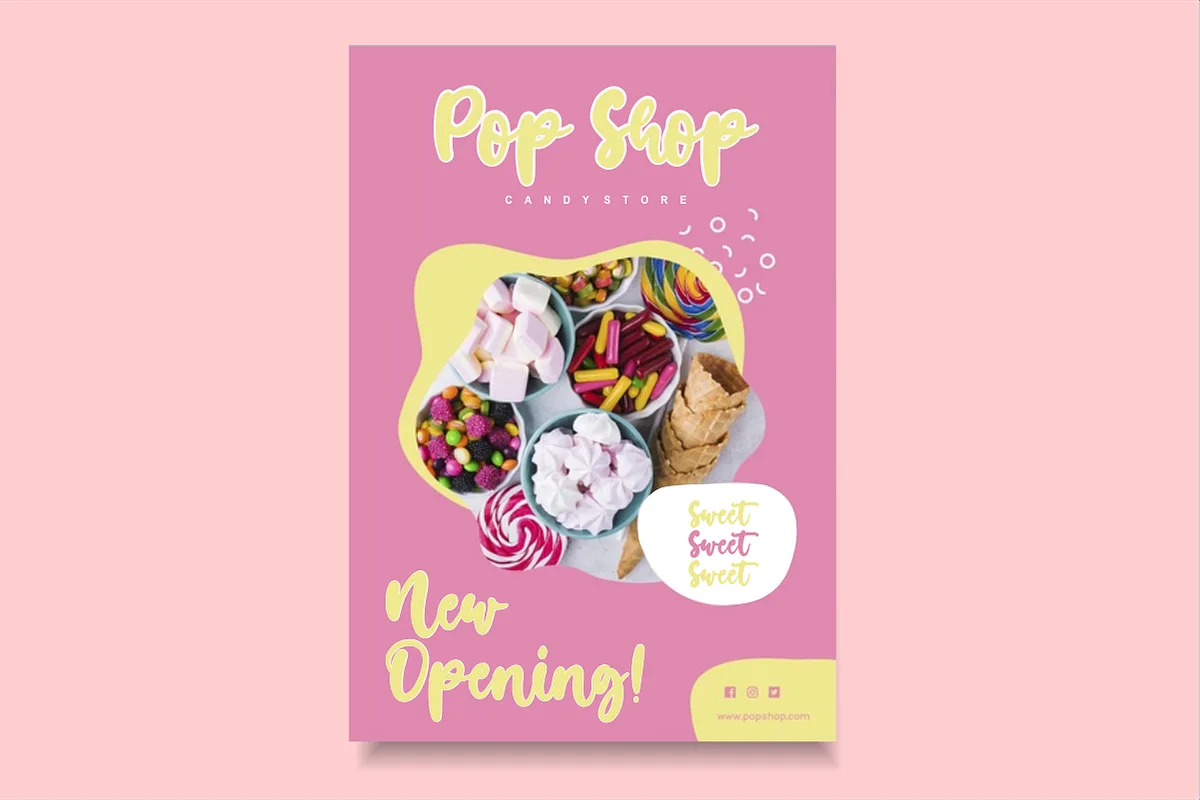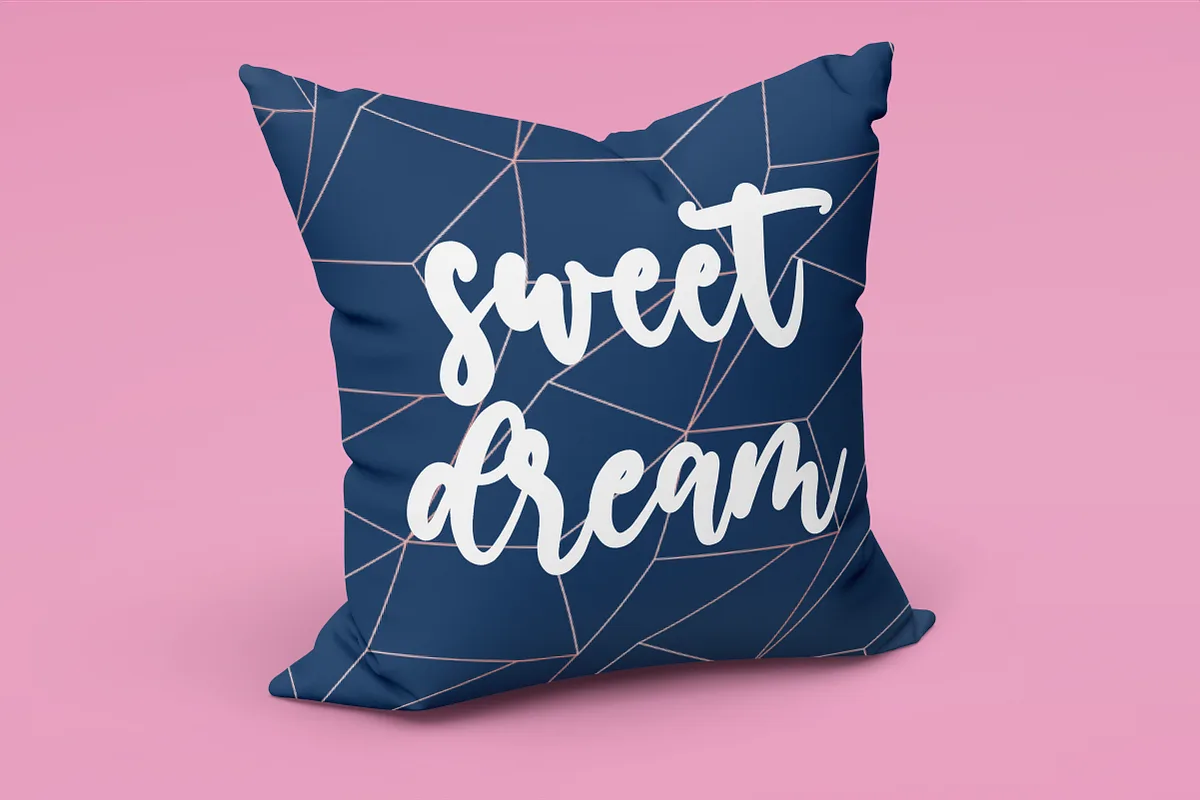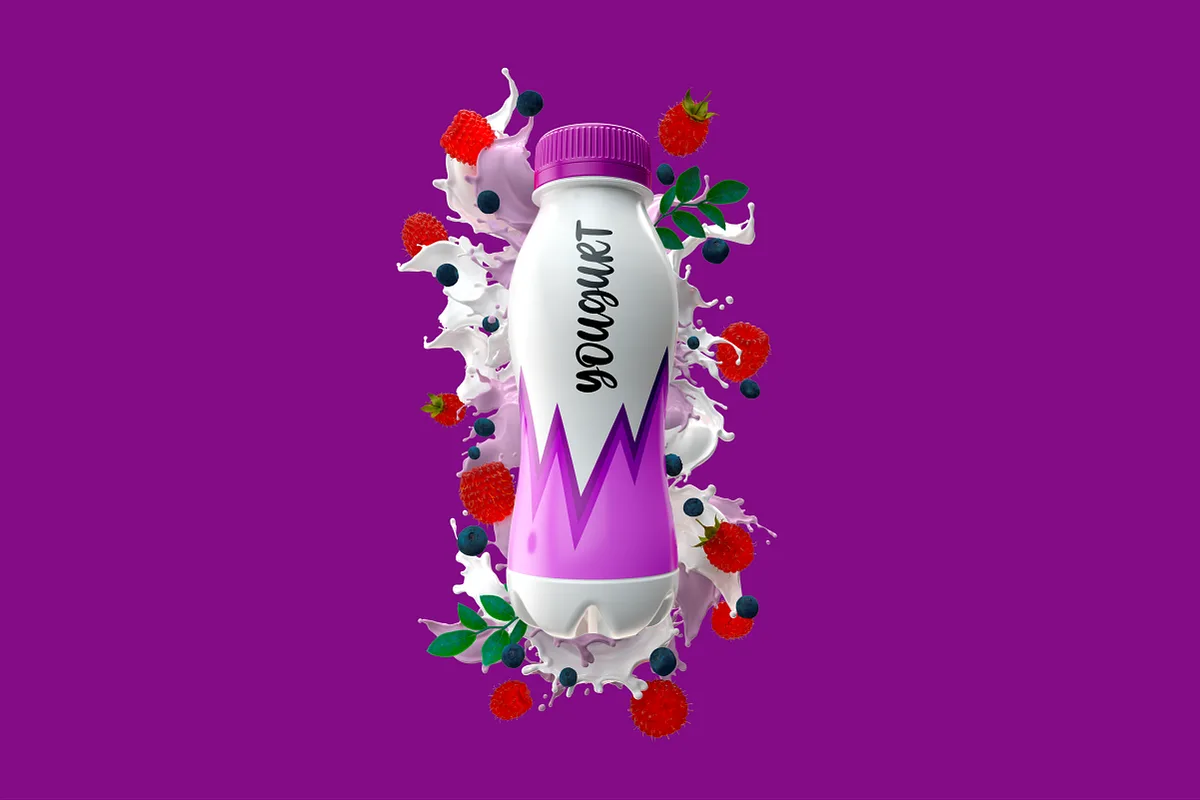
Candy Crush is a bouncy script font. This font is perfect for logos, invitations, stationery, wedding designs, social media posts, advertisements, product packaging, product designs, labels, photography, watermarks, special events, or anything. It comes with a full set of uppercase and lowercase letters, multilingual symbols, numerals, and punctuation.